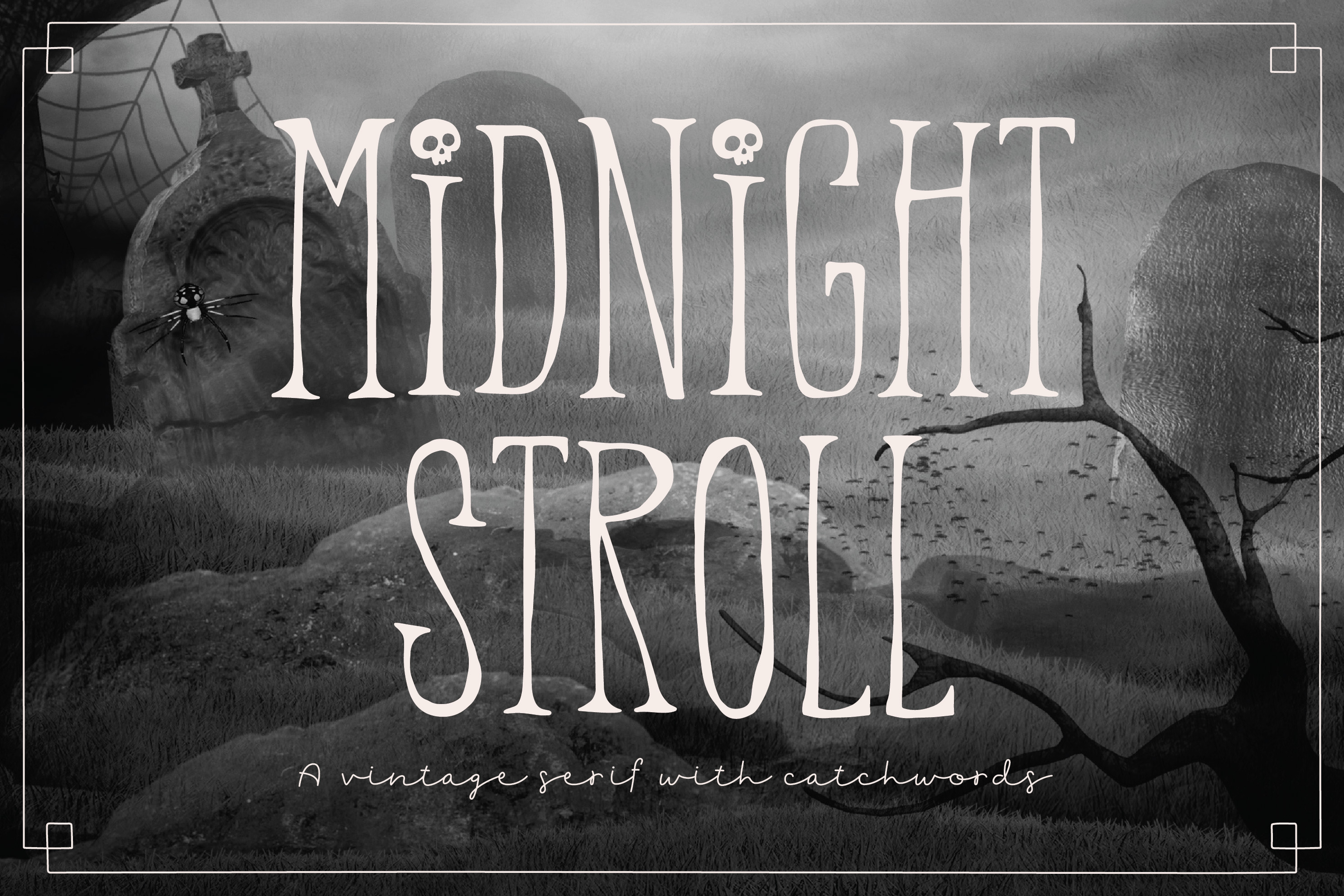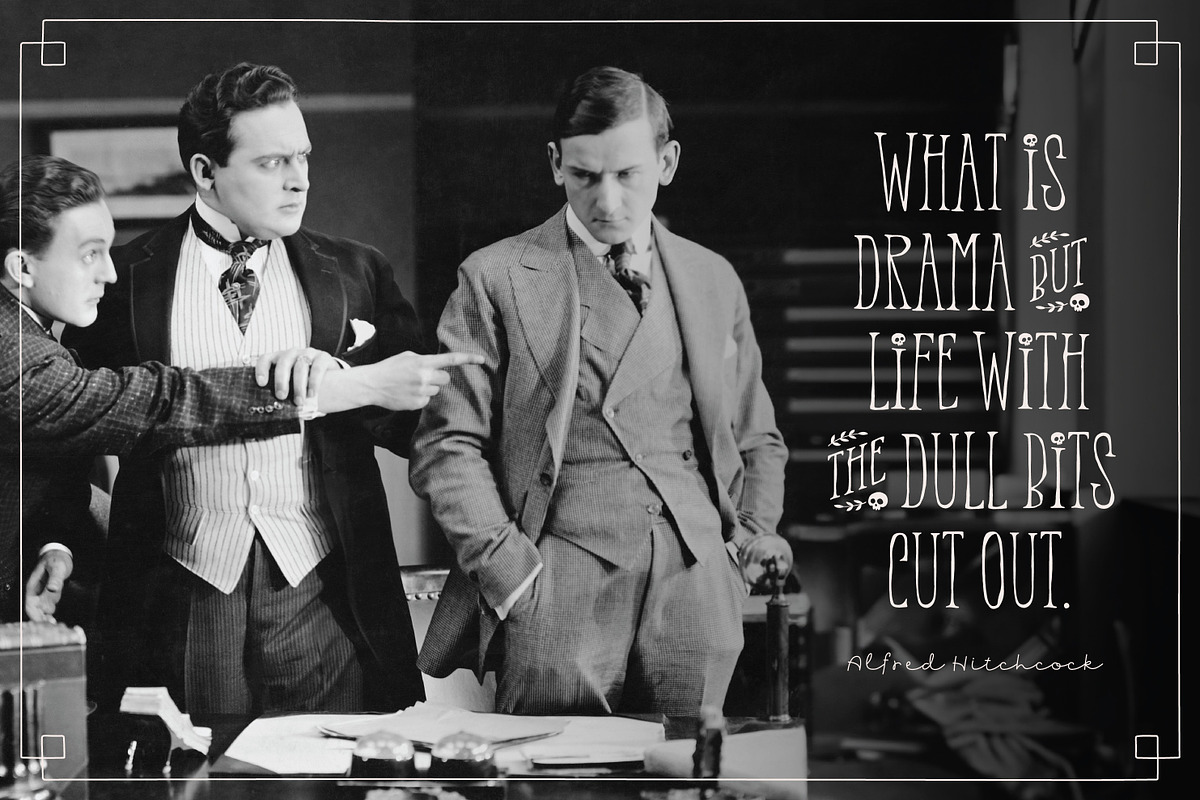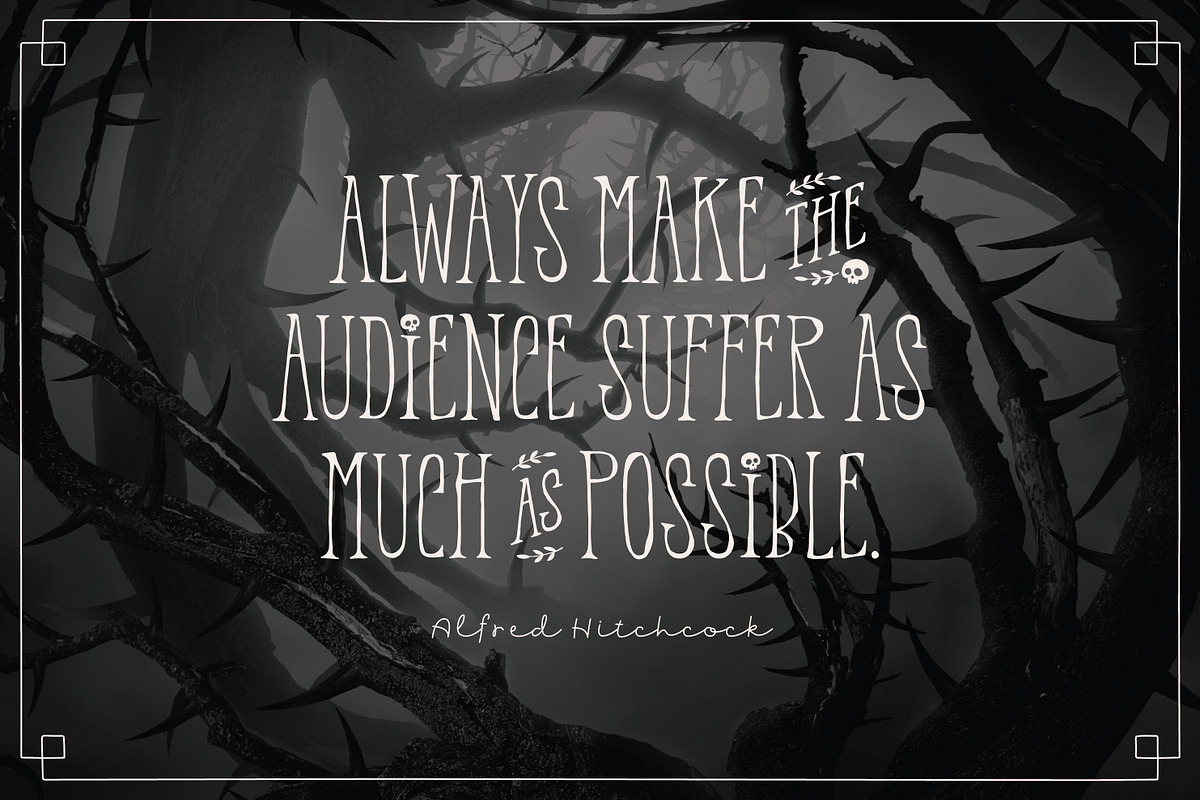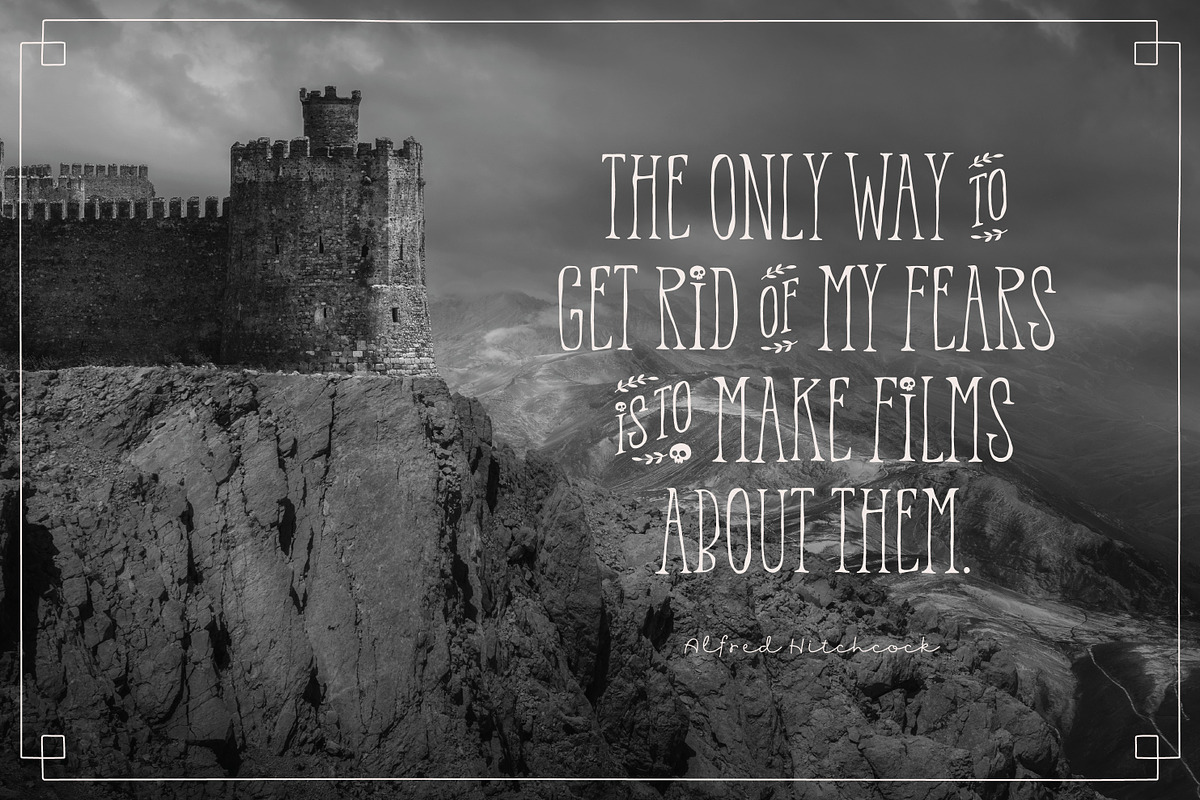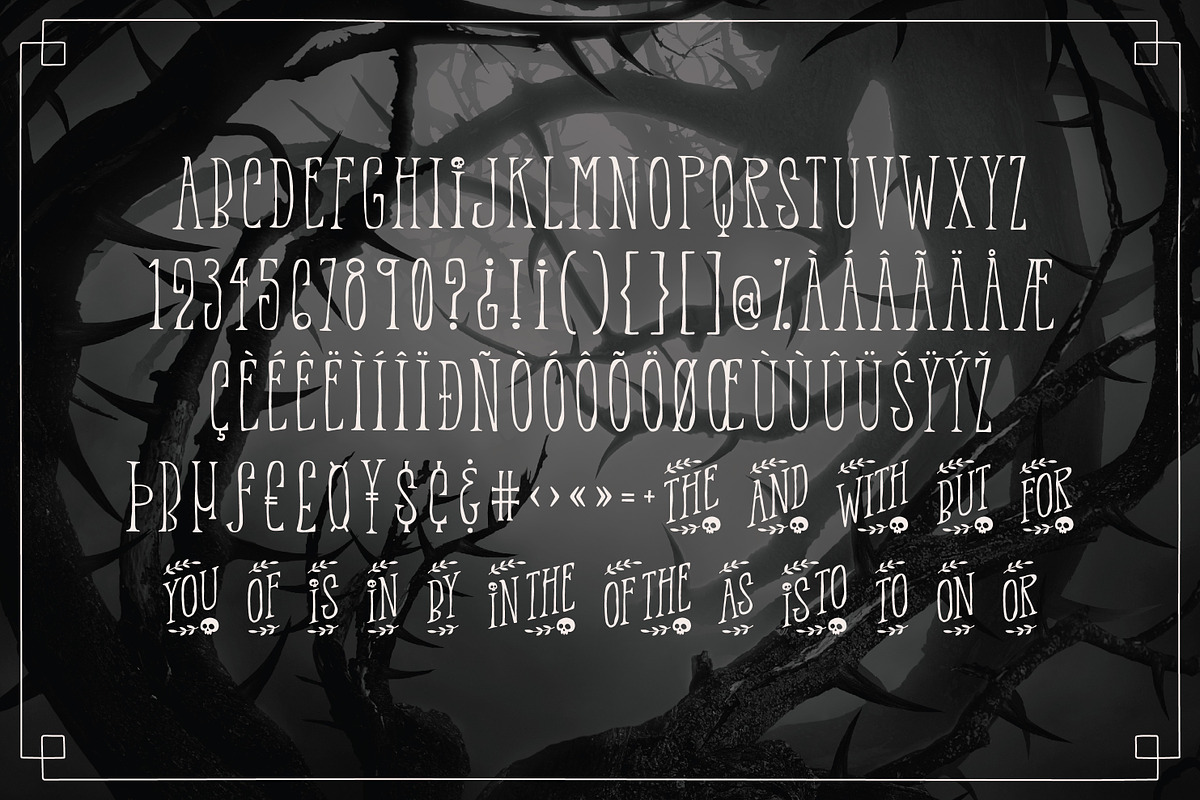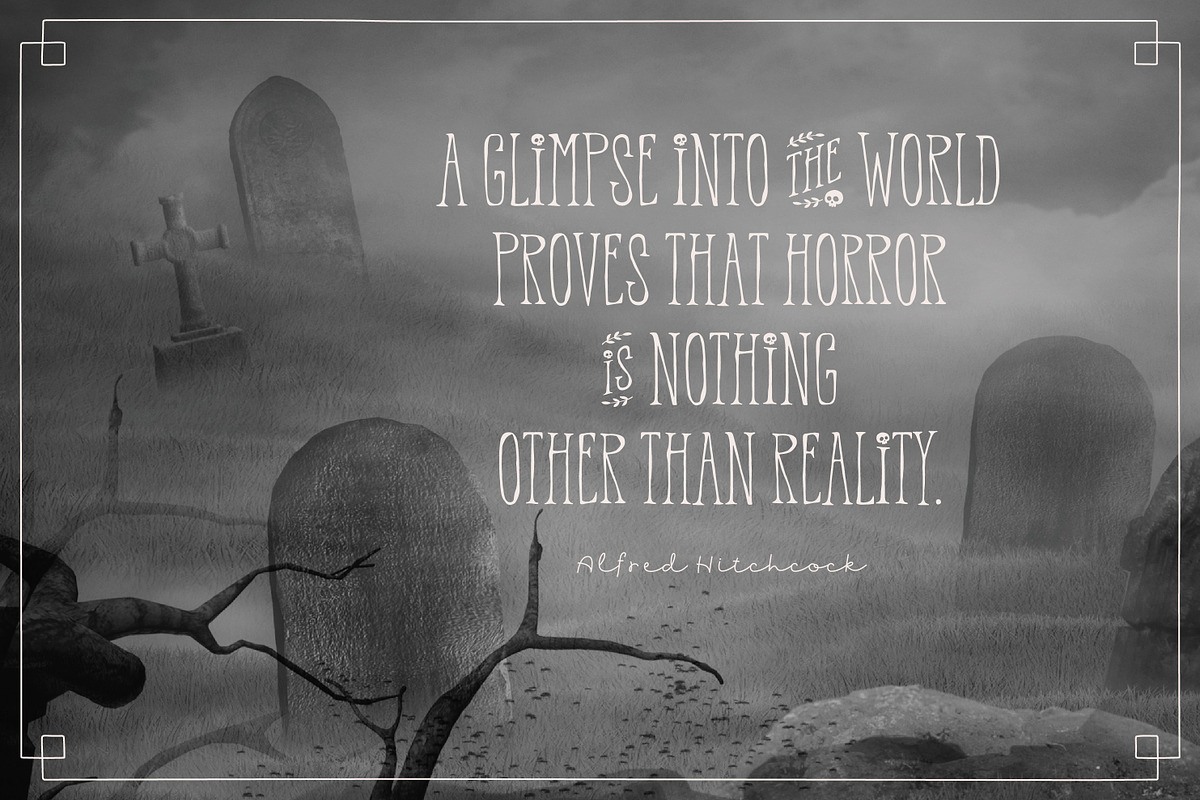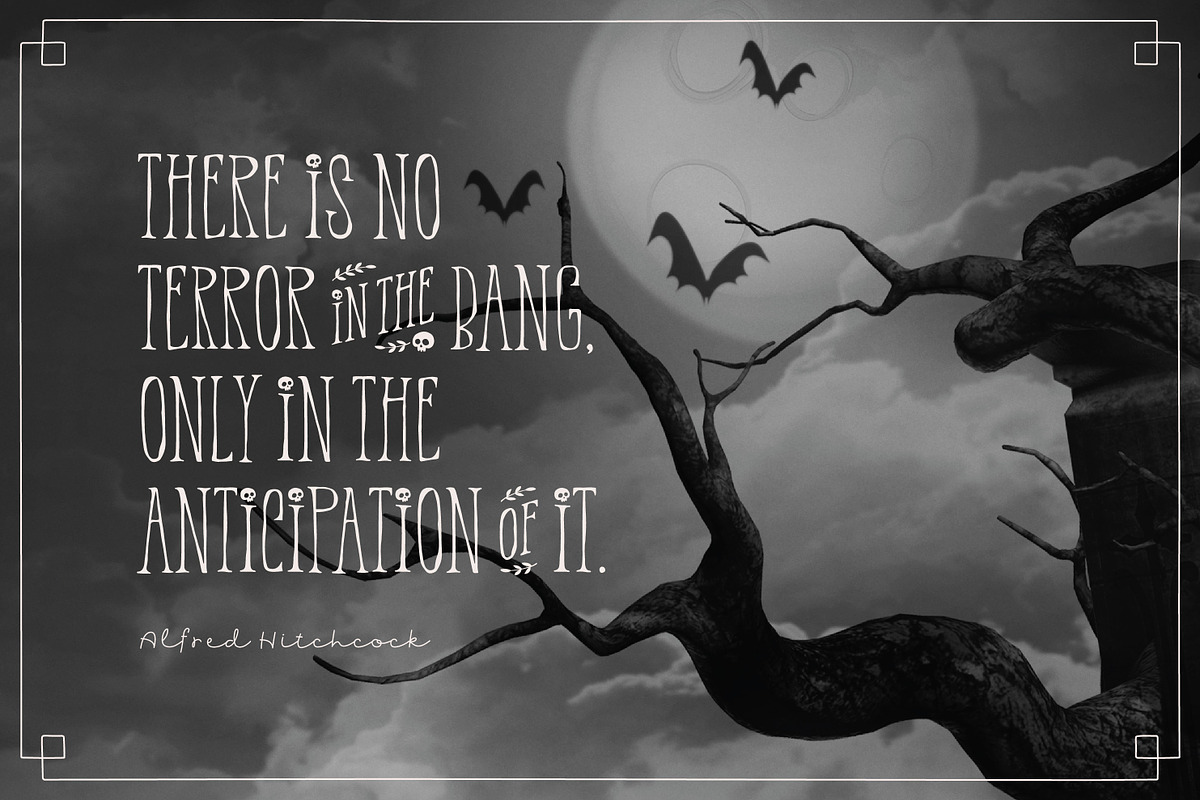
Midnight Stroll Font
Midnight Stroll is a vintage serif font with a hint of macabre. The slim, stylish characters give a sophisticated feel without being stuffy and the catchwords help to add a whimsical touch. Catchwords can be accessed using discretionary ligatures or a glyphs panel. Also included is a separate file MidnightStrollAlt.otf for programs that don't support OpenType features.